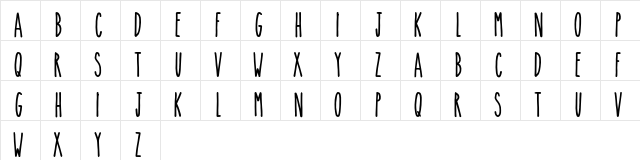
Complete The Skinny Bold glyph index. Displaying only characters natively supported by The Skinny Bold font.
The Skinny is a composed and adaptable typeface that performs quietly and consistently across a wide range of design contexts. Its bold stroke weight gives it real presence on the page.
Who designed the The Skinny Bold font?
This font was published by PYRS Fontlab Ltd. / Made with FontLab. Check the technical specs section for copyright and designer details.